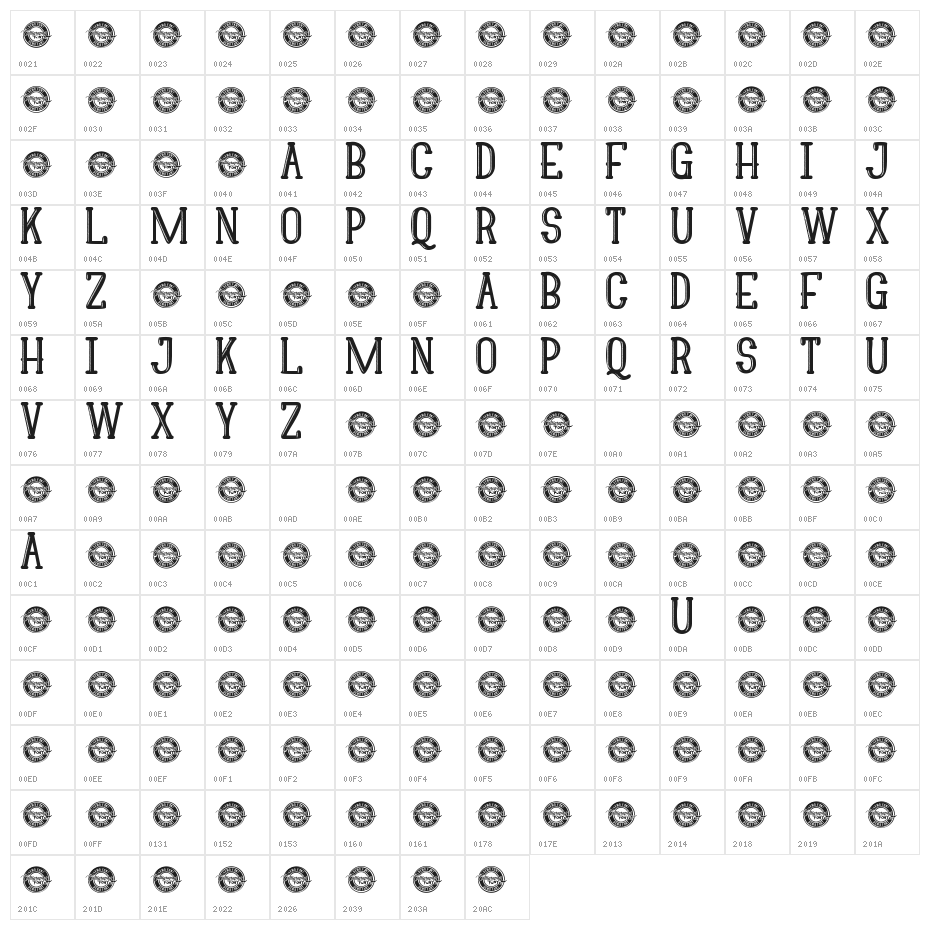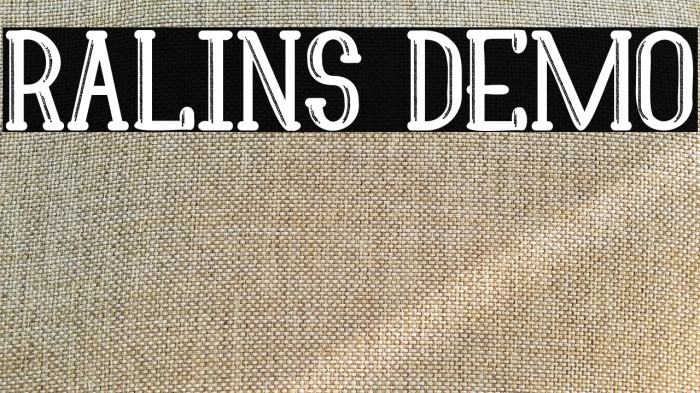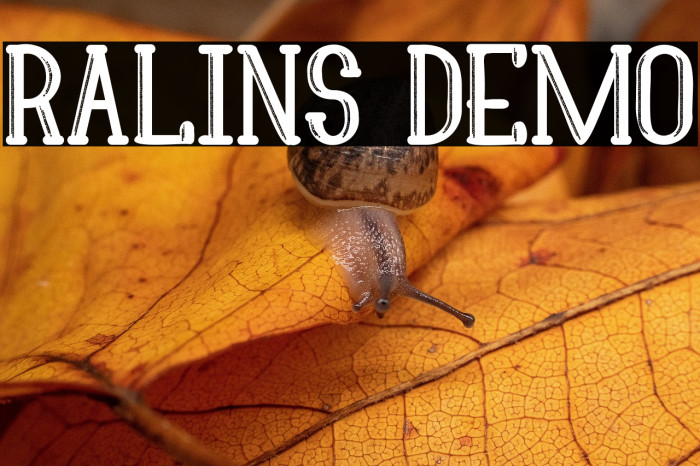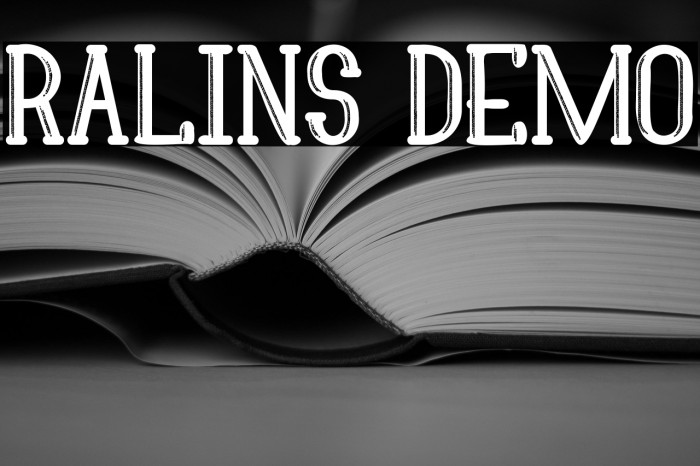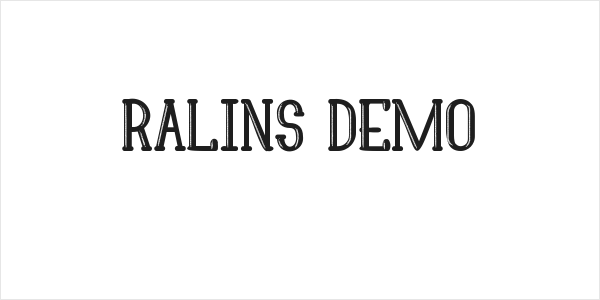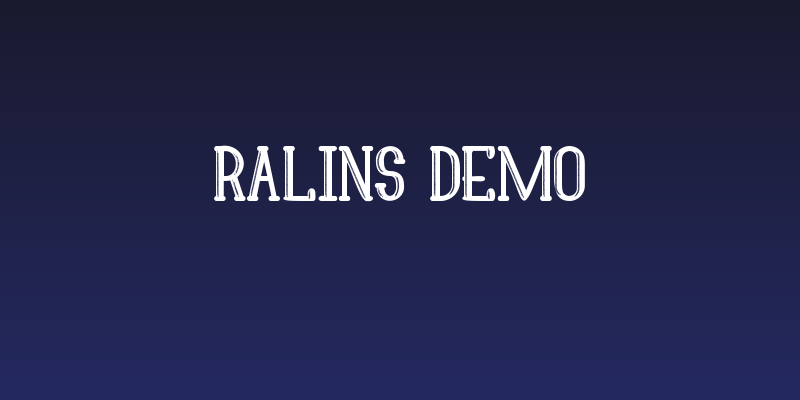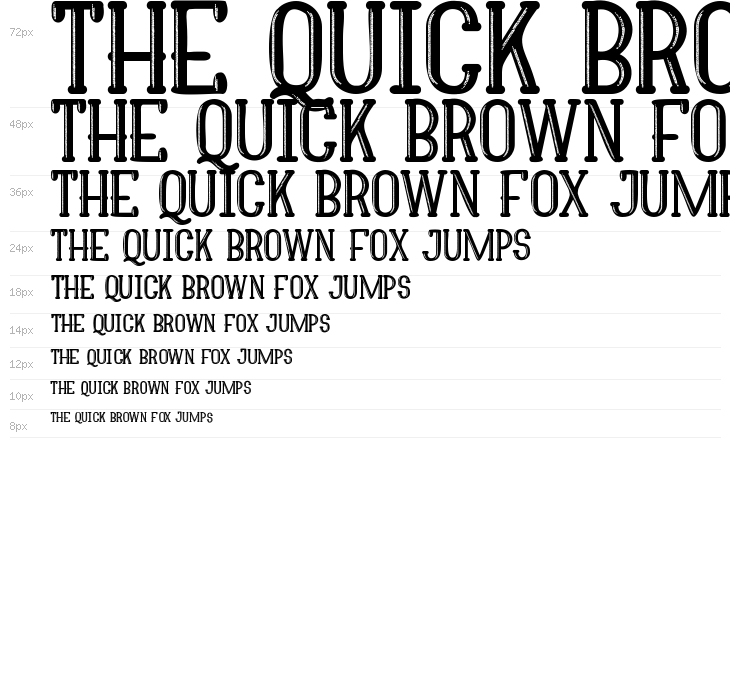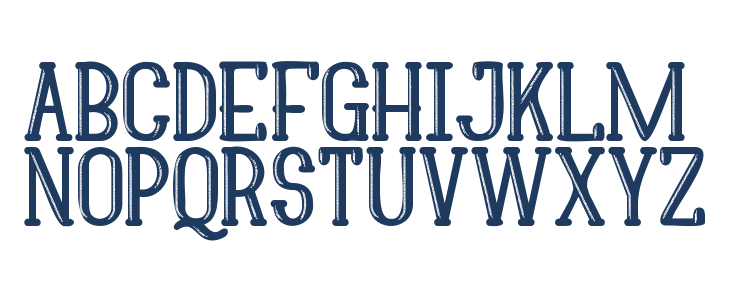
Ralins Demo Font
Ralins Demo Description
This font features a bold and decorative style with a vintage flair. The uppercase letters are designed with a unique, intricate pattern that adds a sense of depth and texture. Each character has a consistent stroke width, giving it a uniform appearance. The font's design is reminiscent of old-fashioned signage or vintage posters, making it ideal for projects that require a touch of nostalgia. The characters are well-spaced, ensuring readability while maintaining their decorative appeal. This font is perfect for creating eye-catching headlines, logos, or branding materials that need to stand out with a classic yet artistic touch.
| Overall Style | Vintage |
| Proposed Projects | Ideal for vintage-themed posters, logos, branding, and signage. |